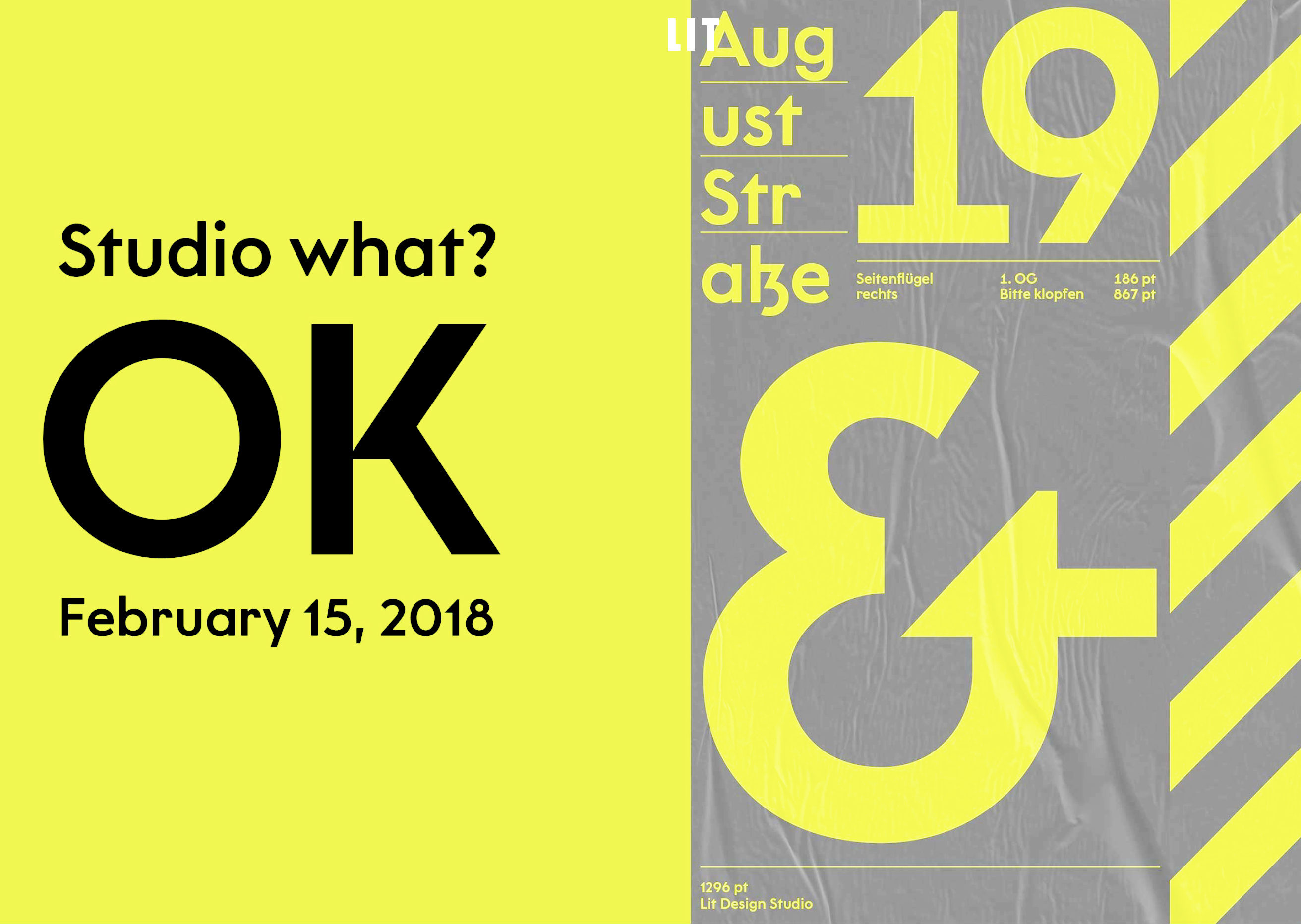
Livius Dietzel
Berlin-based type designer. Co-creator with Hannes von Döhren of ITC Chino, ITC Chino Display (2009), a soft-edged bold signage and sans family, FF Basic Gothic (2010, a grotesk family), Brix Slab (2011), Brix Slab Condensed, Brix Sans (2014, created using precisely engineered glyphs for corporate or information design), and Livory (2010, a rounded serif type family of four fonts influenced by the French Renaissance Antiquas from the 16th century).
In 2018, he co-founded Lit Design Studio with Tom Hossfeld. Together, at their new studio, they designed these typefaces:
• Lit Sans (2018-2019), an attractive geometric typeface straight from the Bauhaus school attic. Lit Sans Medium is free.
• Graphit (2019). This seems to be identical to Lit Sans. Curated by HVD Fonts, it showed up at MyFonts in January 2019.